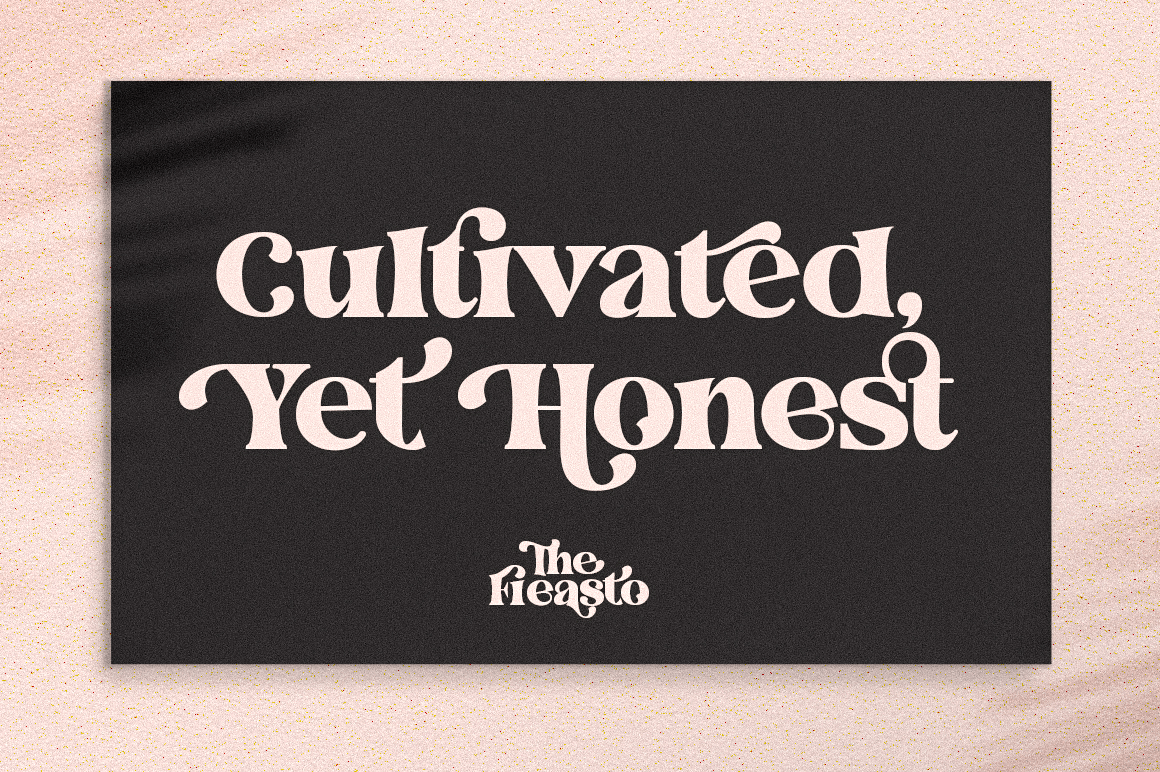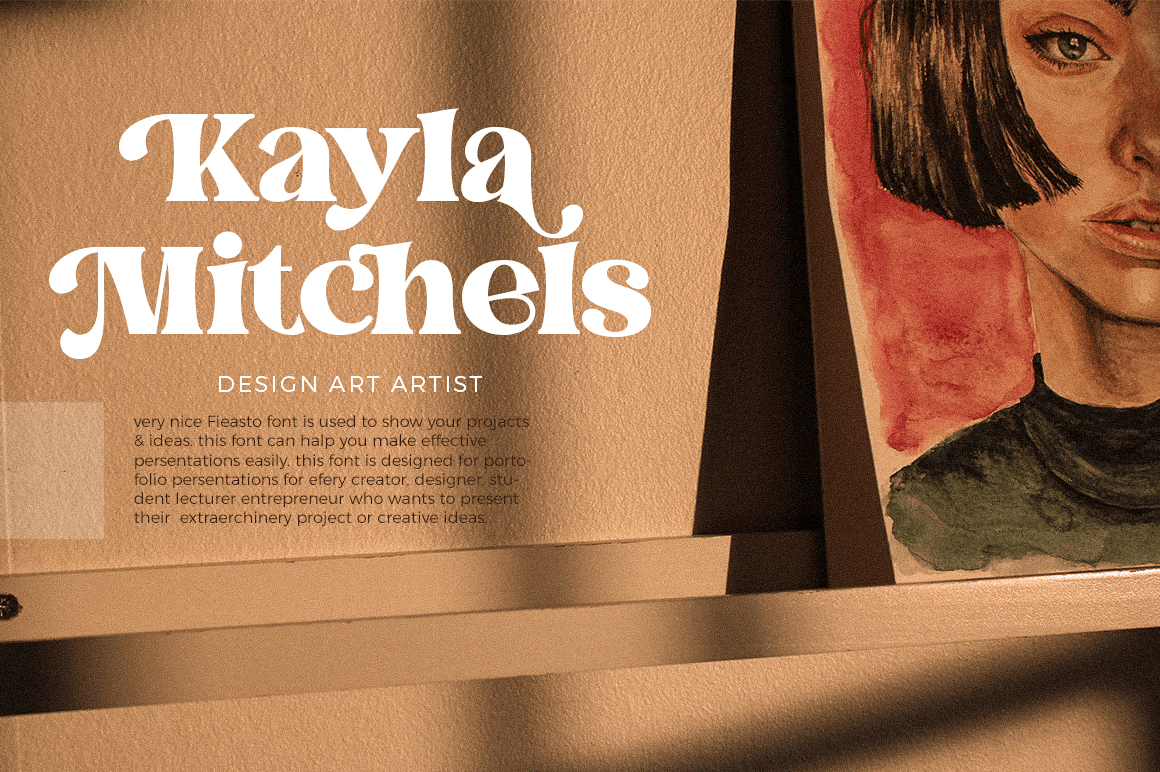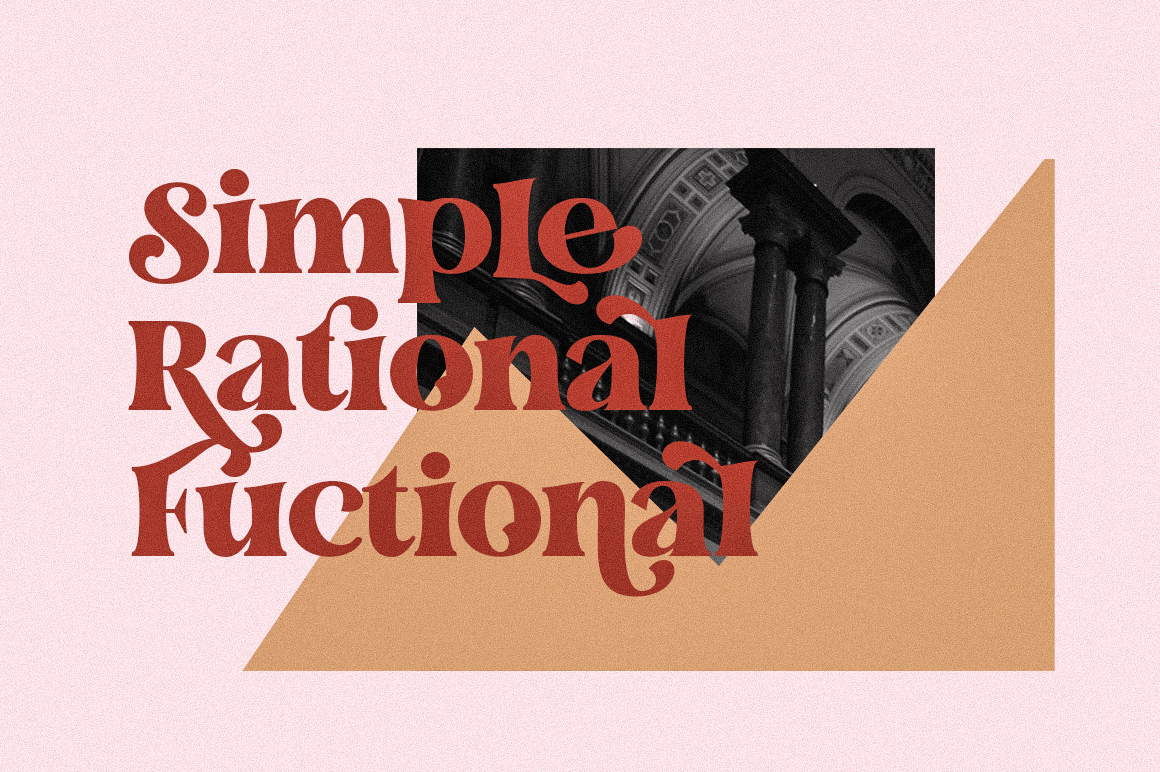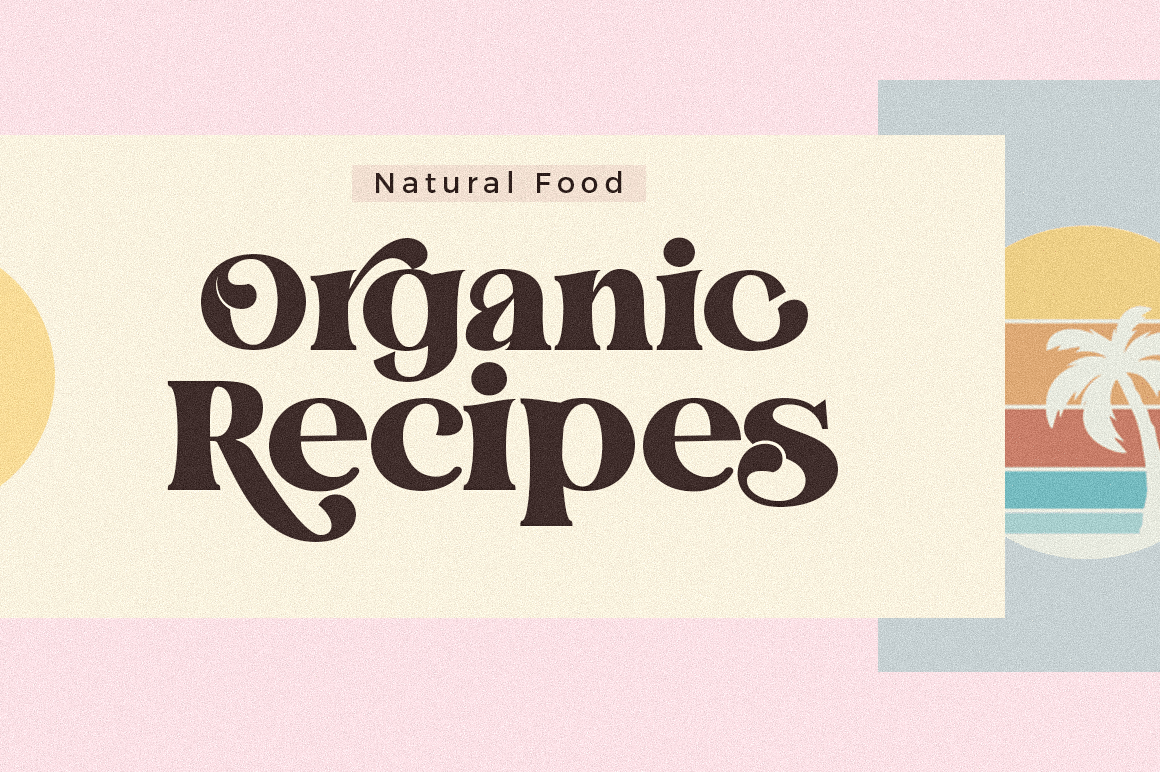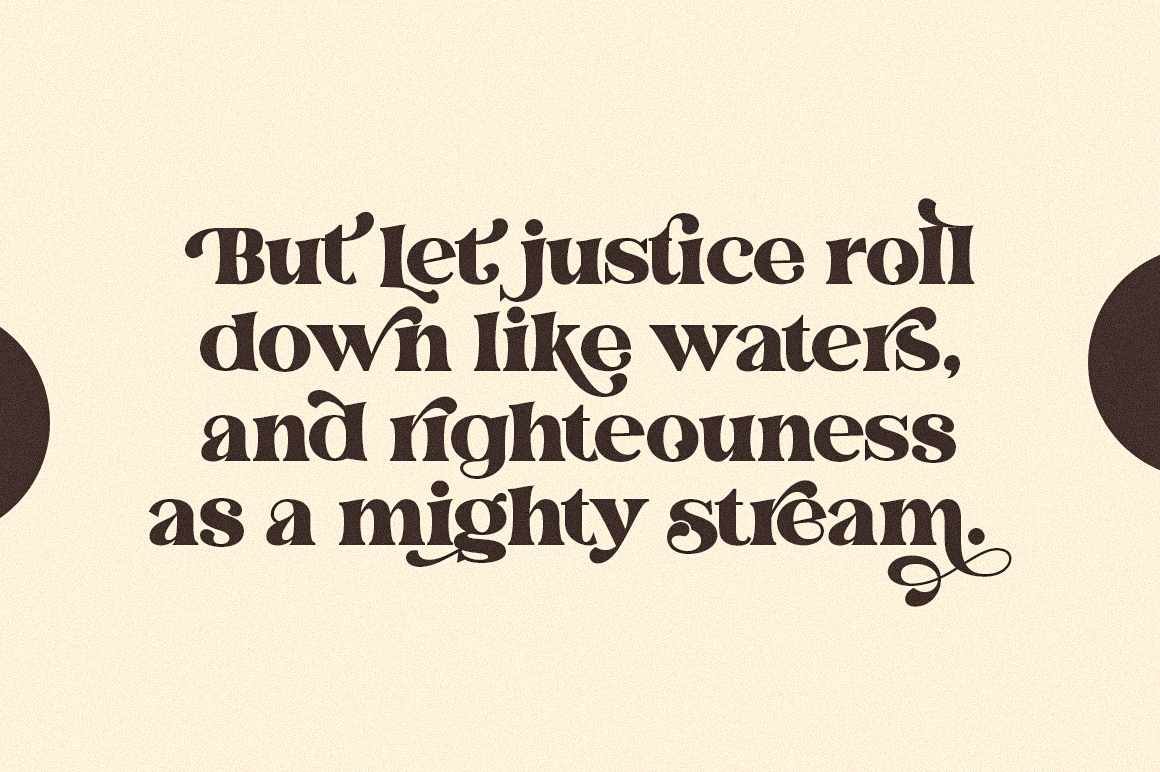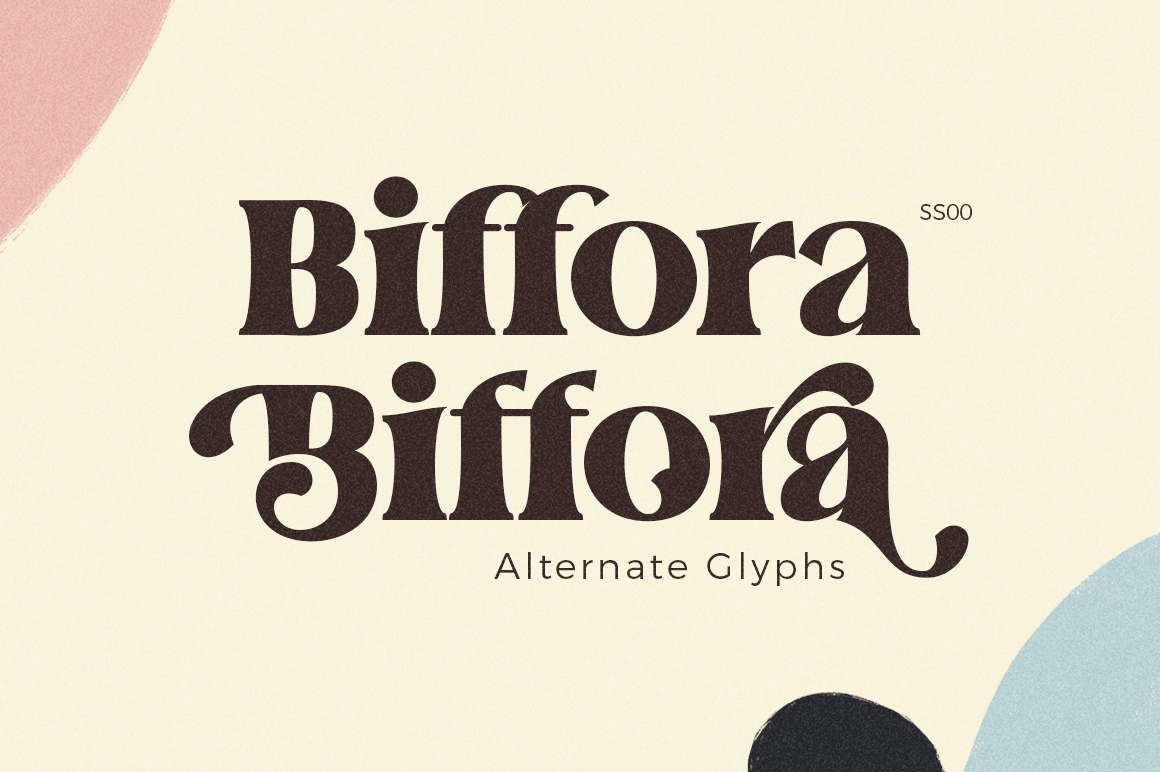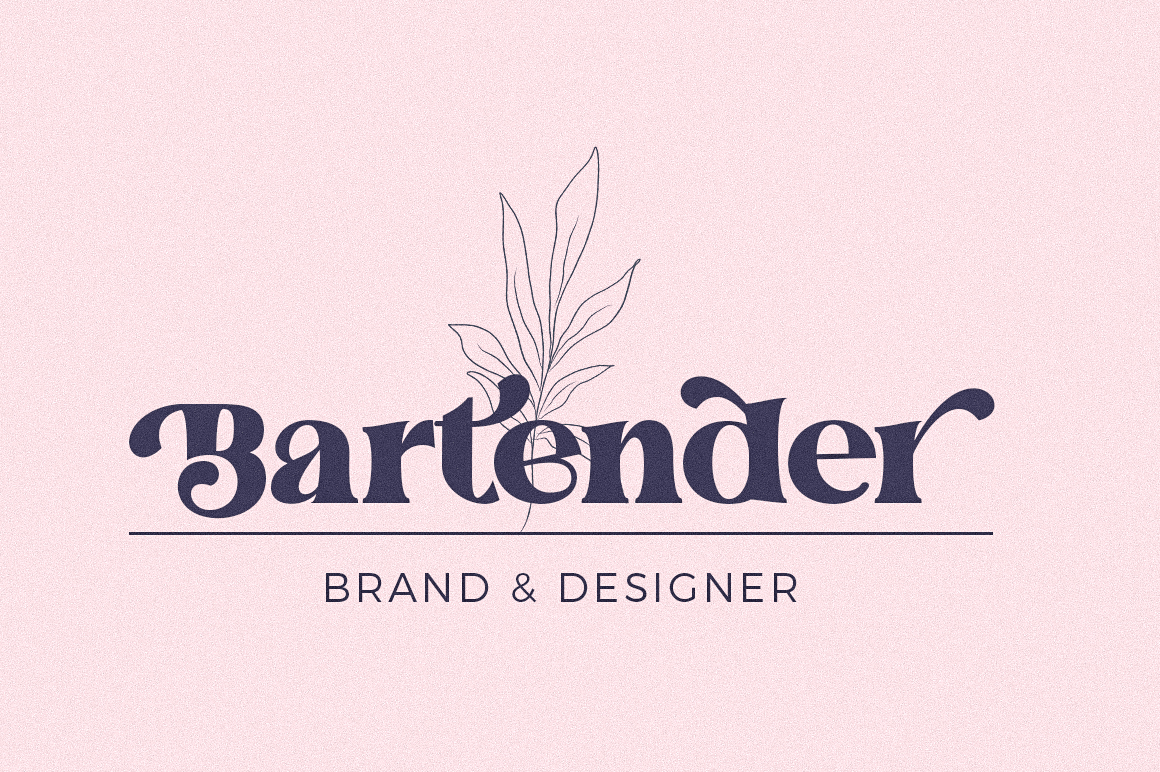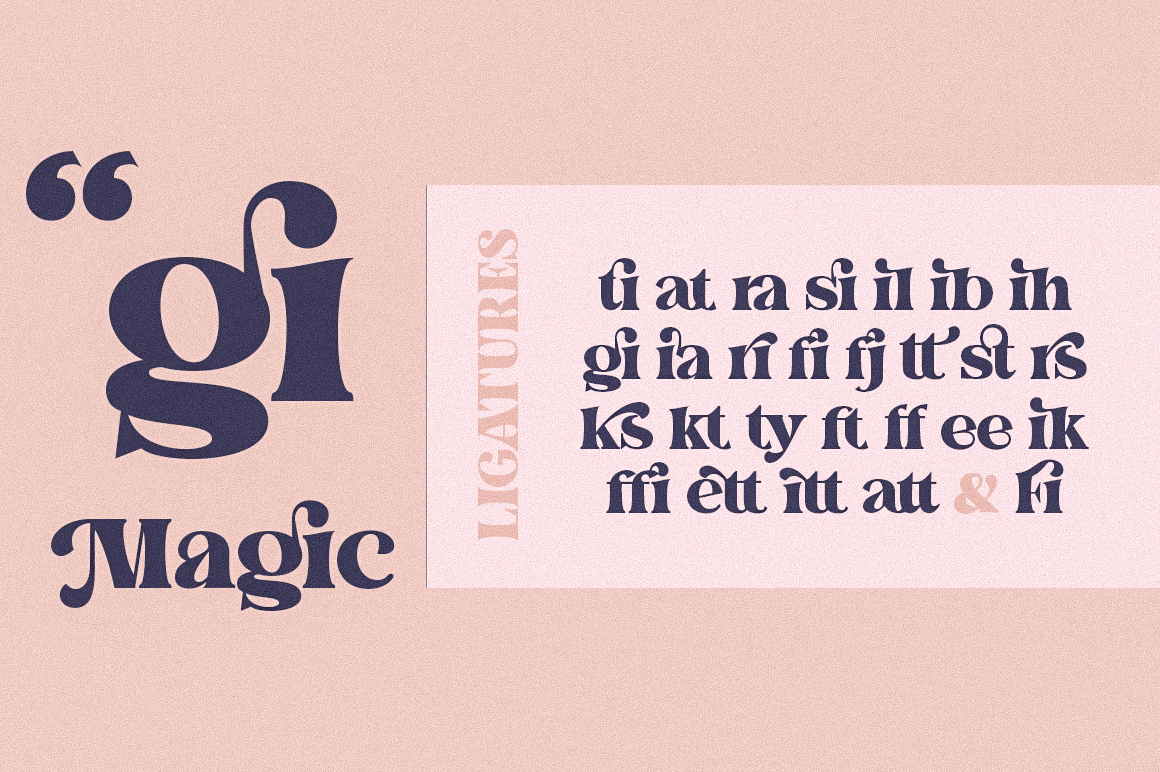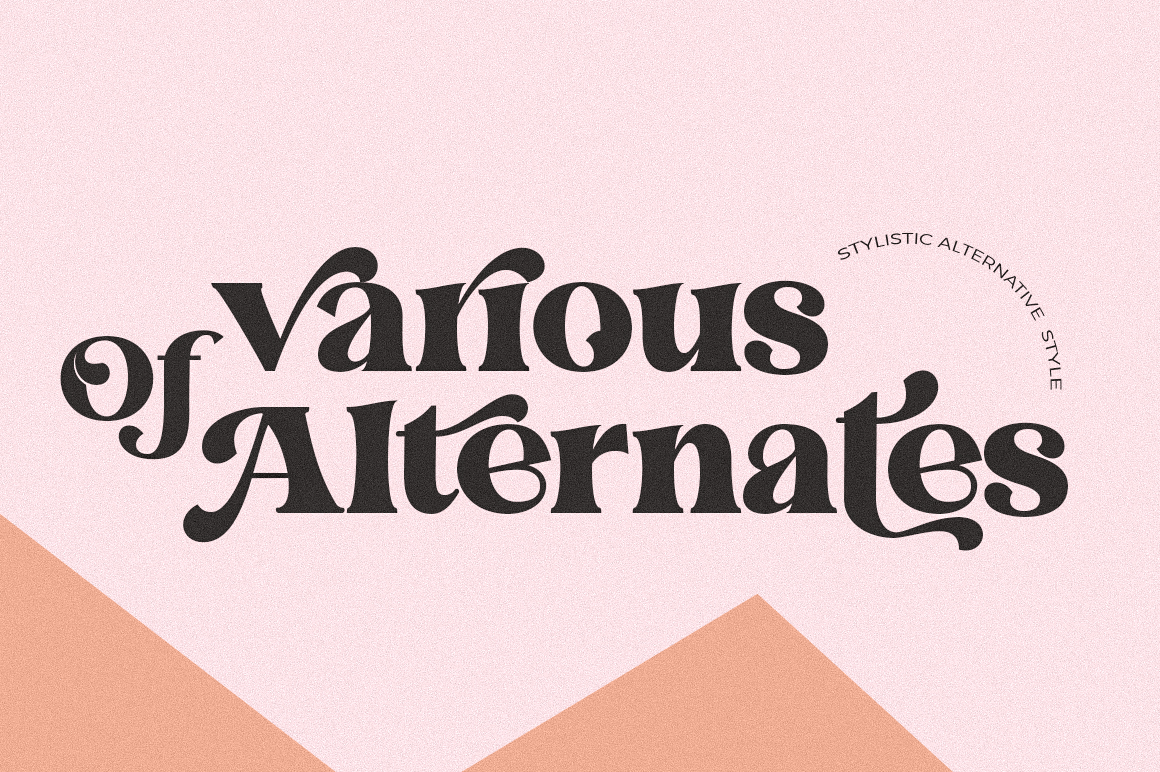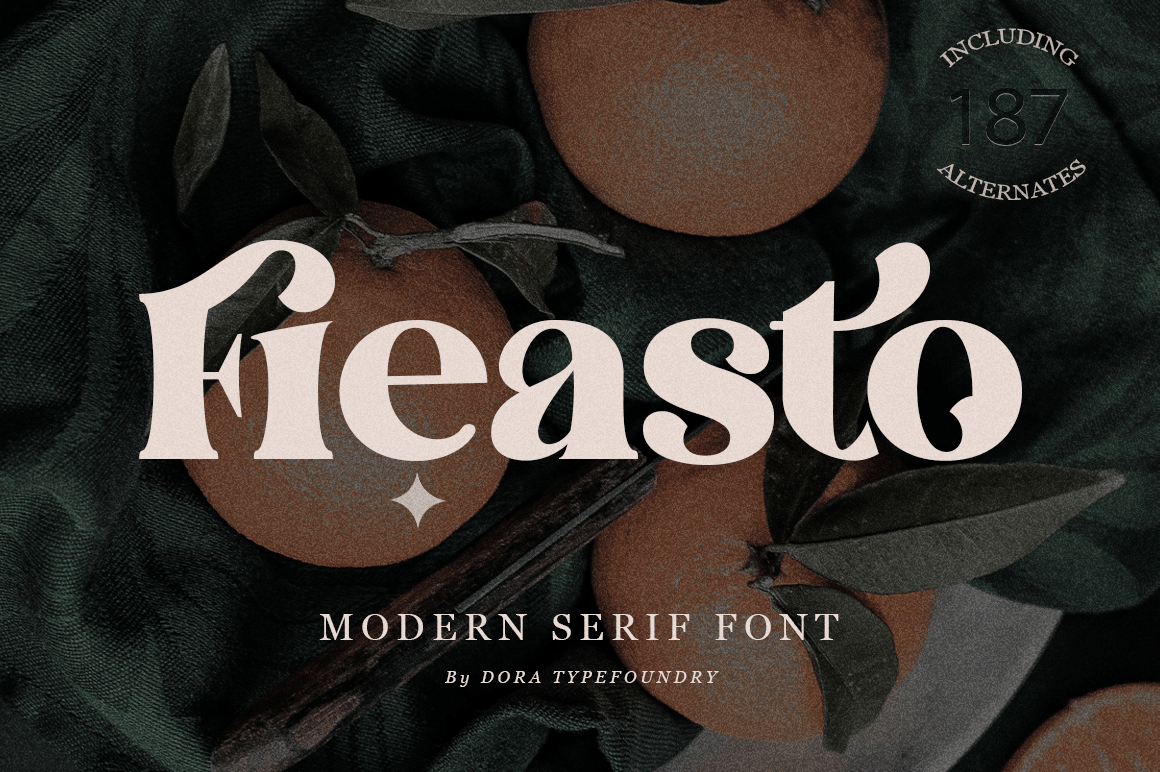
The Fieasto
Introducing The Fieasto – a modern serif typeface with many styles. High contrast version of the famous Didot display that has been synonymous with fashion for decades. This font has more than 378 glyphs with multilingual letters included. Based on modern…